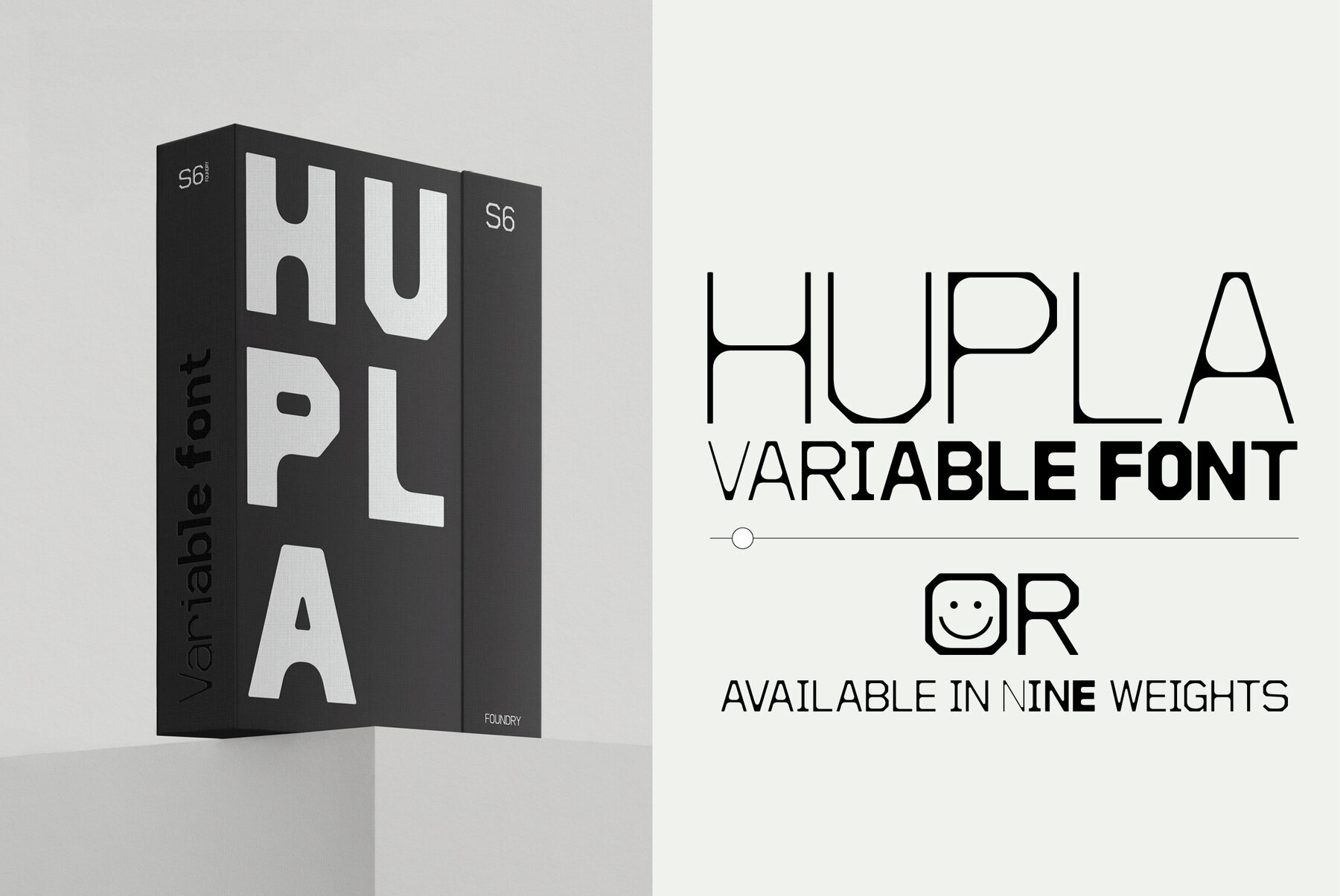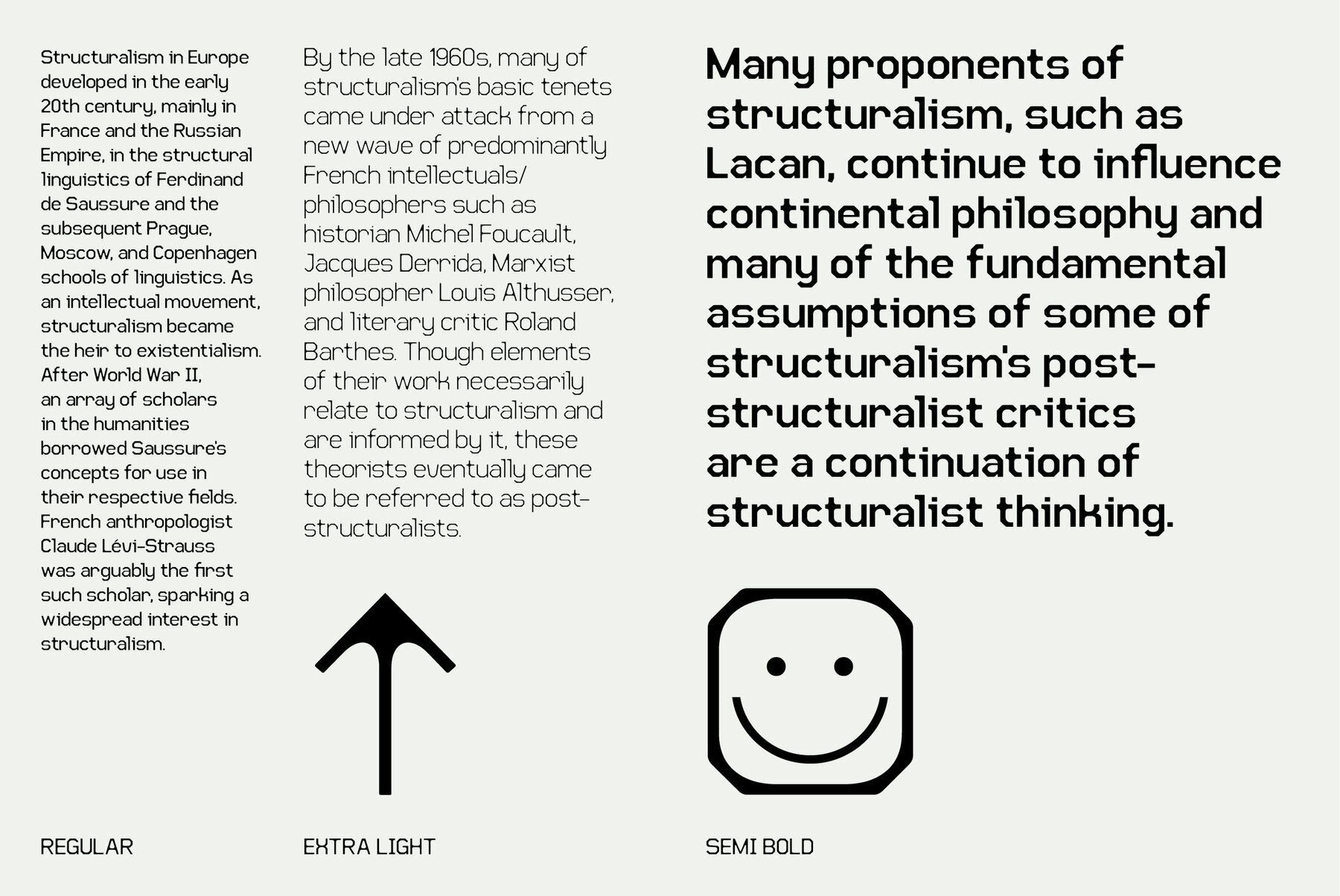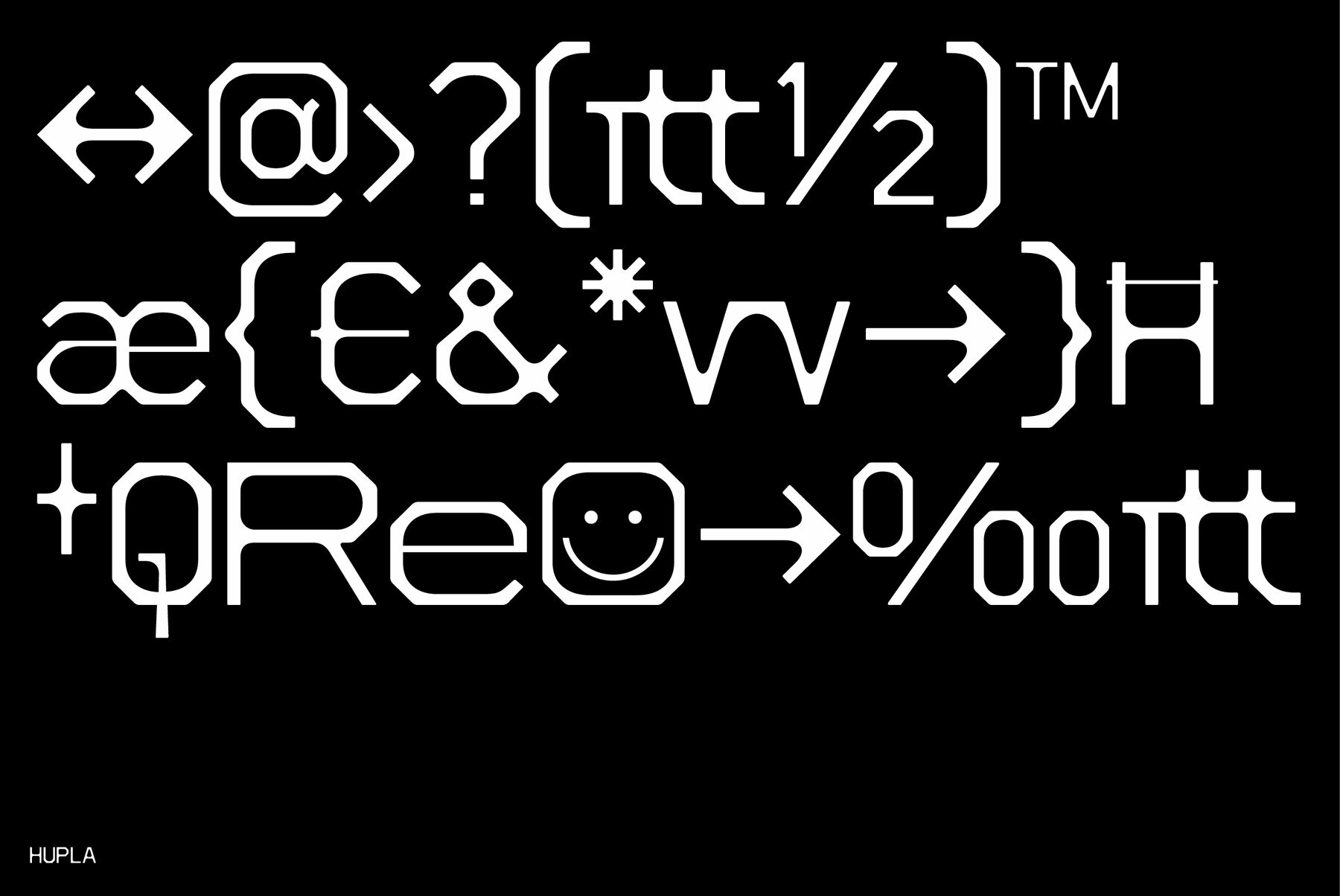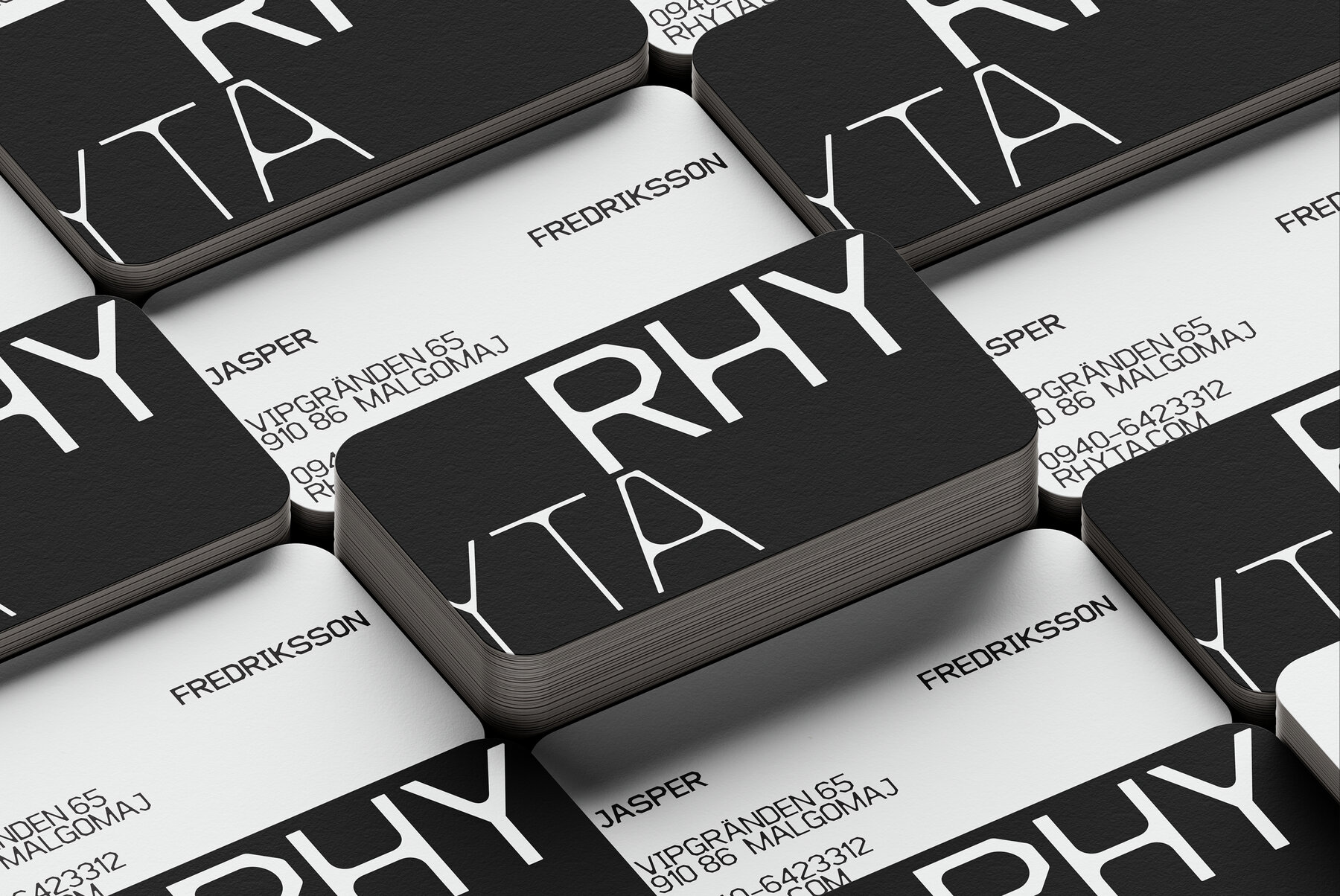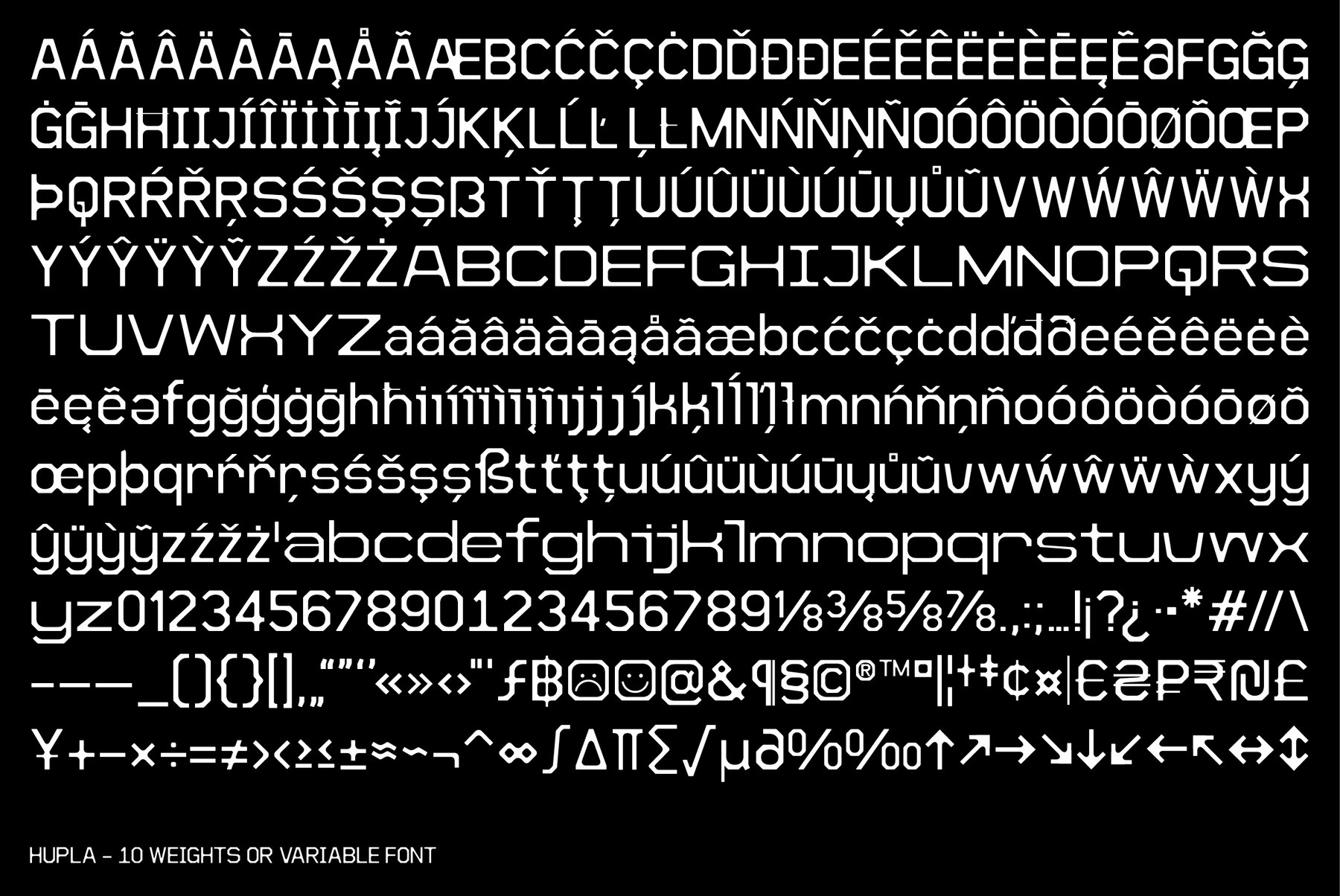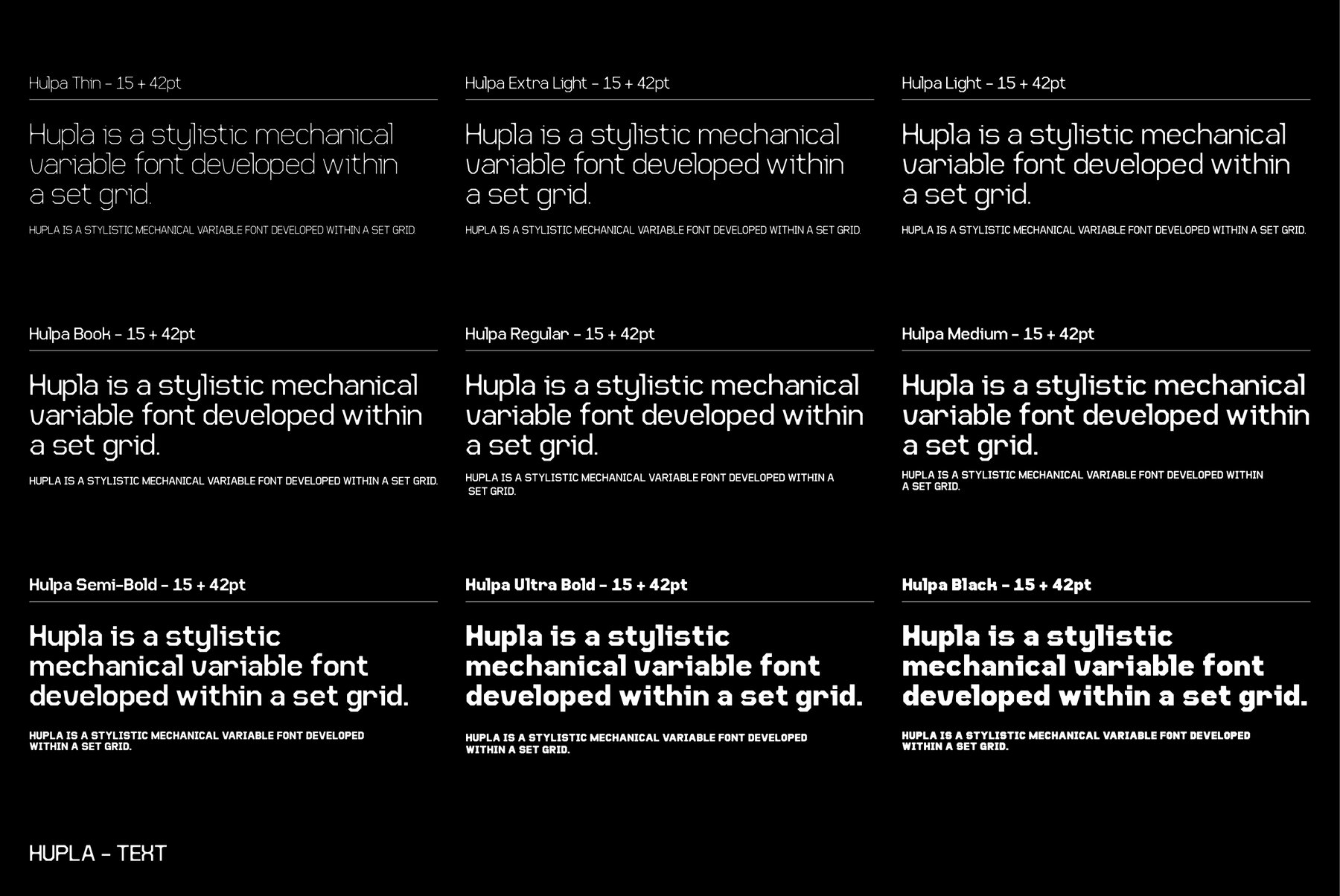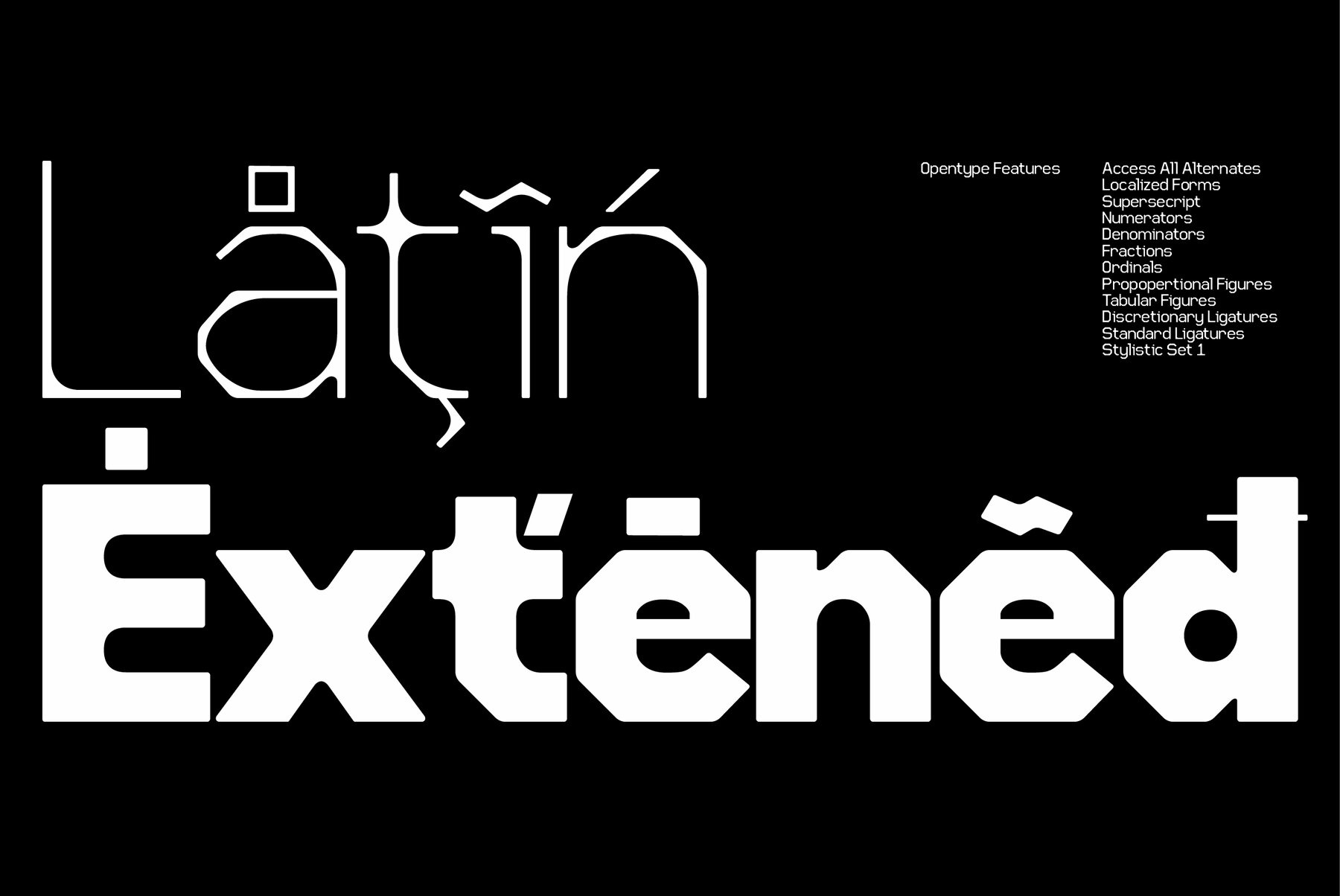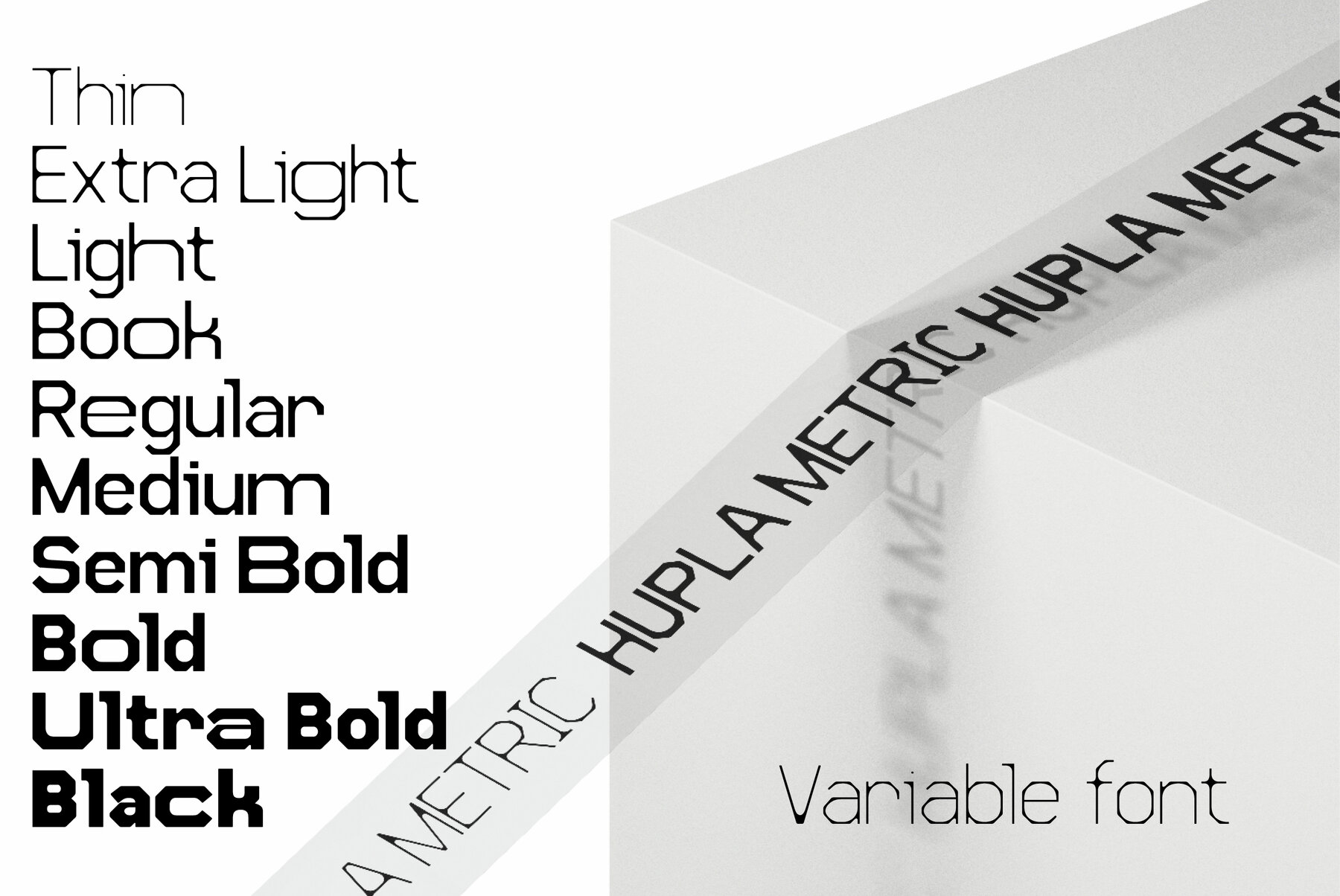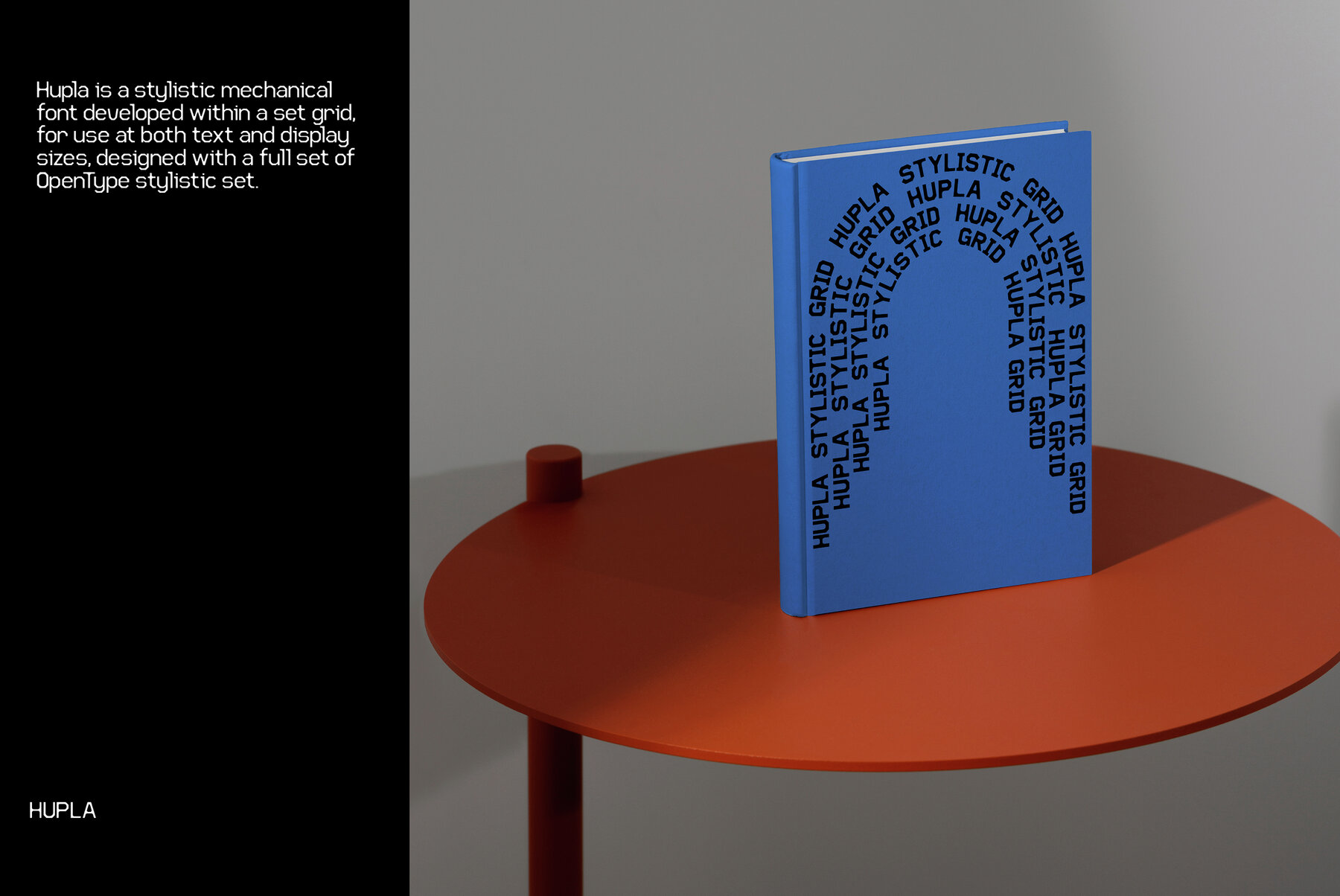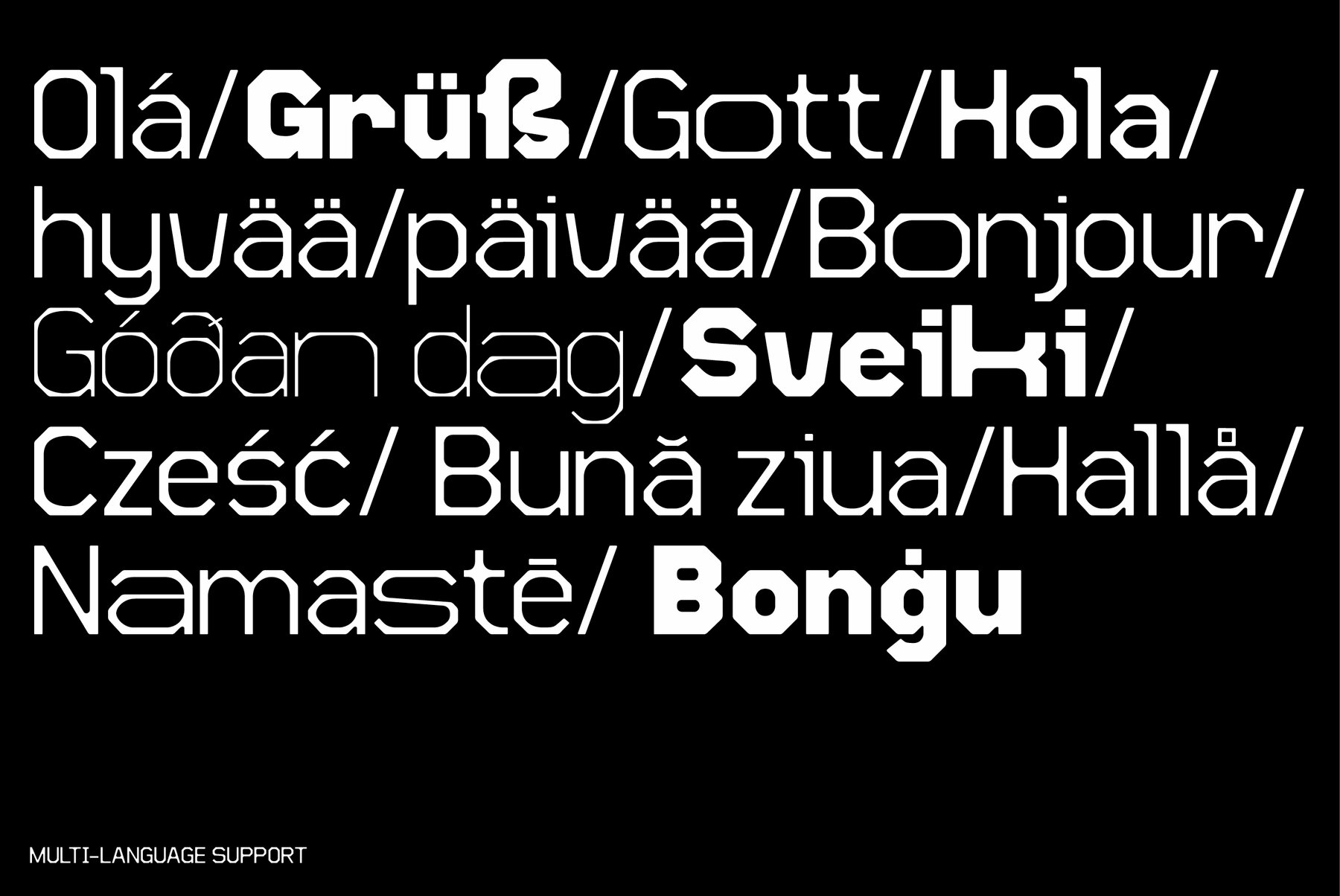
Hupla Font
Hupla is a stylistic mechanical font developed within a set grid for use at both text and display sizes, designed with a complete set of OpenType stylistic sets. Ideally suited for headlines, large-format prints, brand identities, social media, advertising, editorial design, posters, magazines, logos, headings, body copy, digital and more.